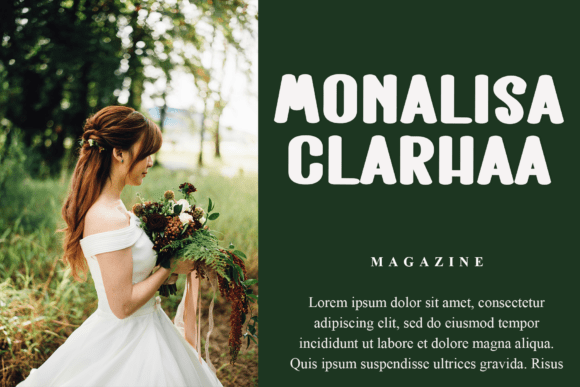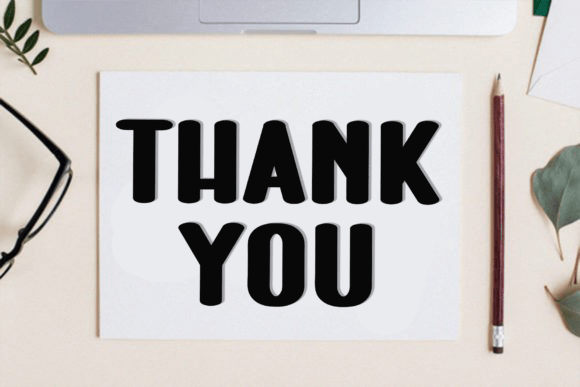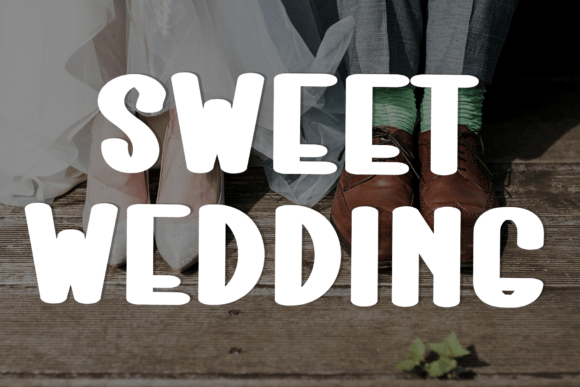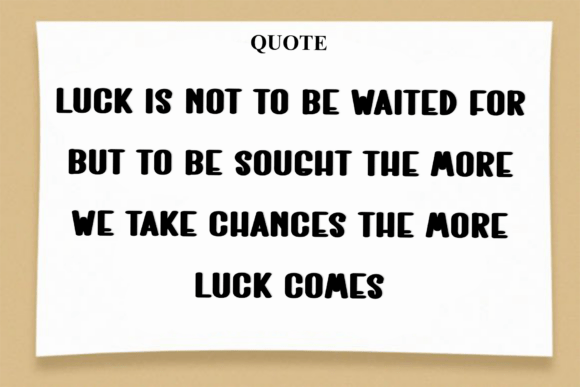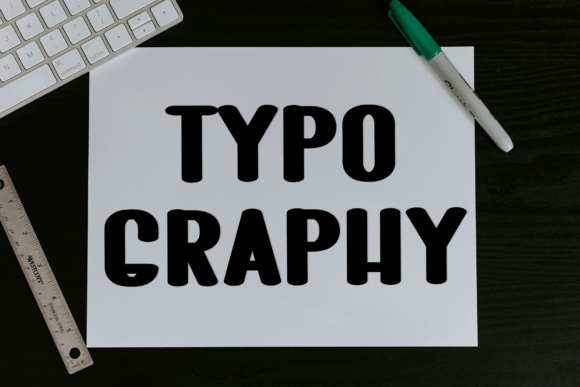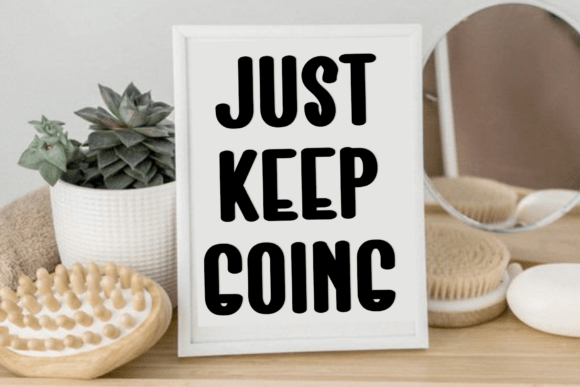
Introduction to Playing Hockey Font
Playing Hockey is a casual and creative font that exudes warmth and friendliness.
Key Features of Playing Hockey Font
Why Choose Playing Hockey Font?
Playing Hockey Font offers exceptional quality and versatility, making it a valuable addition to your design toolkit. Whether you’re creating for personal projects or commercial use, Playing Hockey Font delivers professional results.